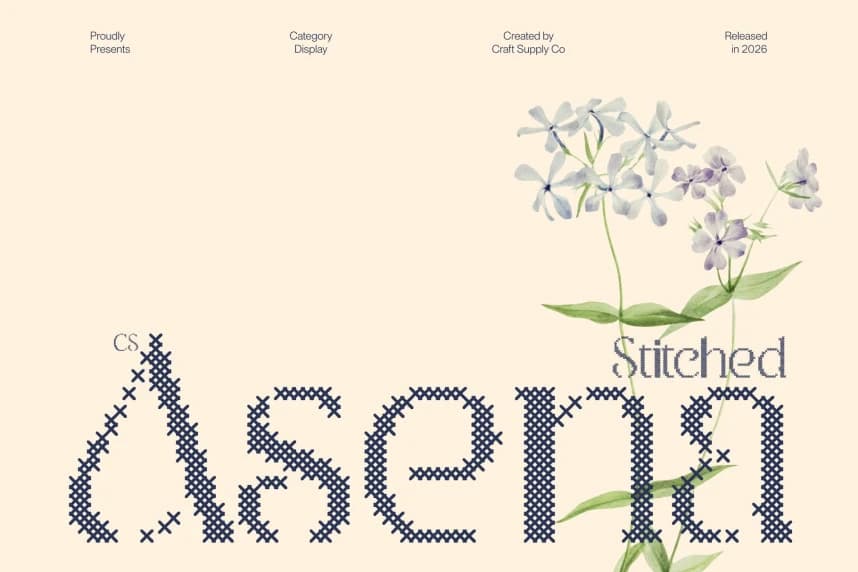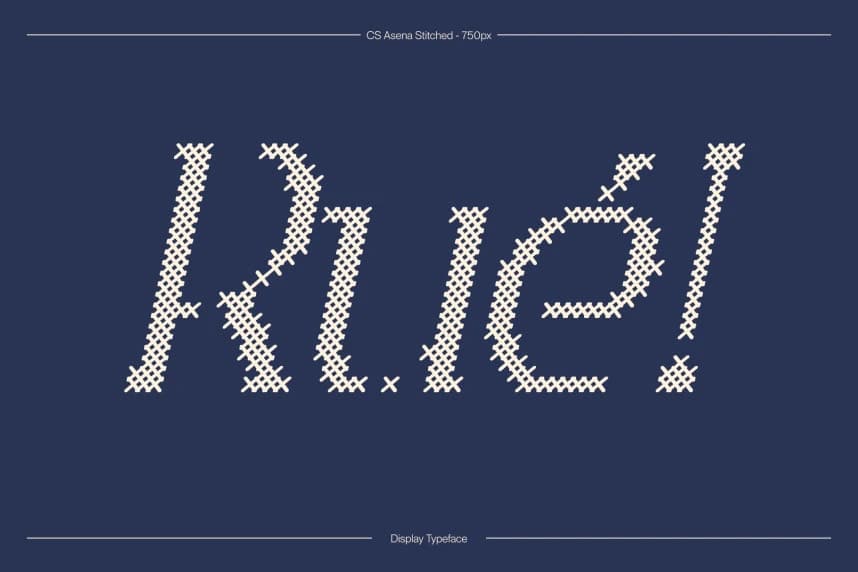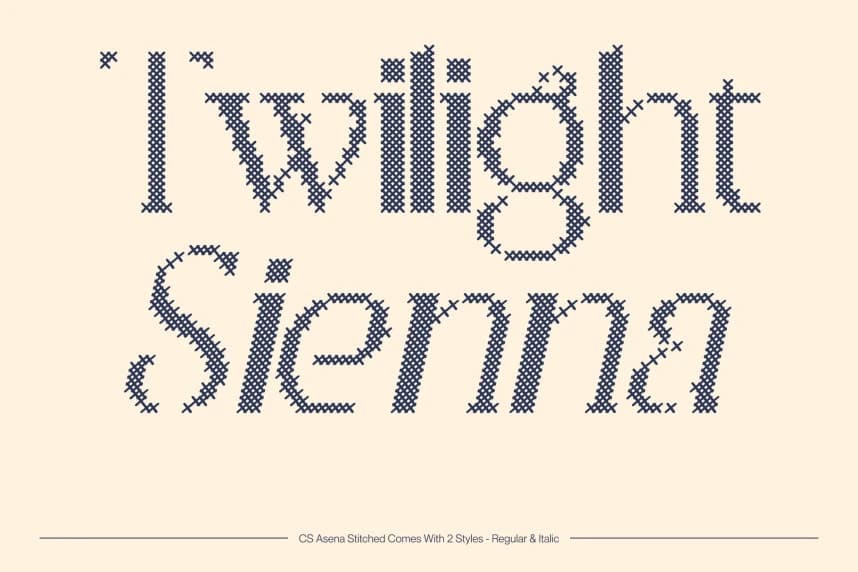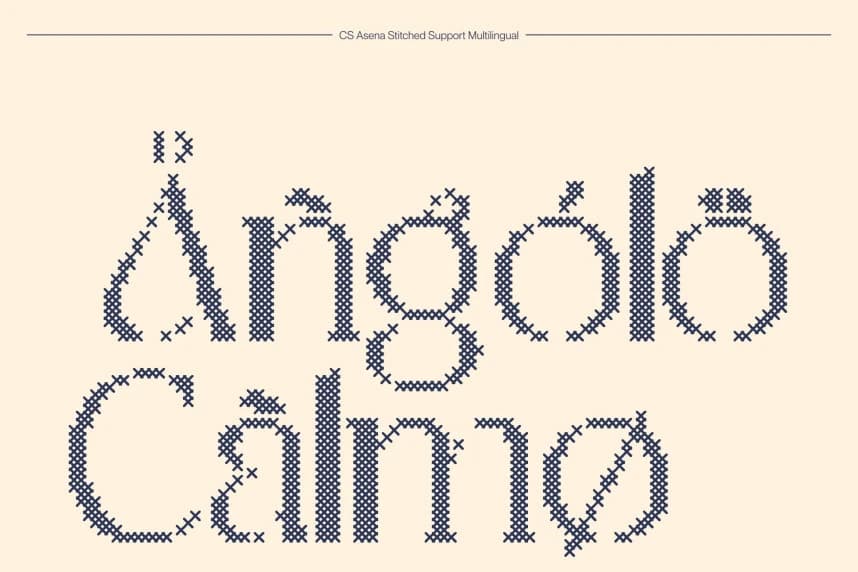
CS Asena Stitched Font
CS Asena Stitched Font – Elegant Grace with Modern Sophistication Elegant Serif Font with Handcrafted Artistic Character. This is an elegant serif font designed to deliver a refined, high-end appearance infused with artistic sophistication.